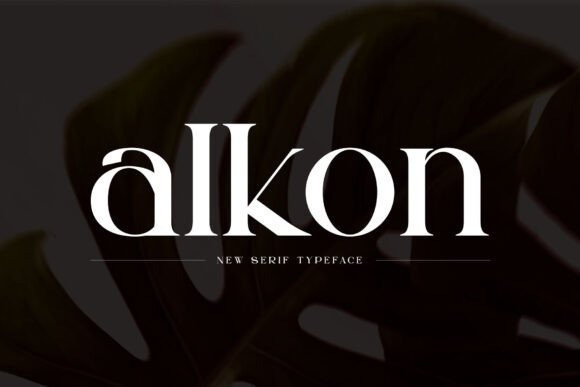
Alkon Font
Alkon Font is an elegant and classy serif typeface. This font is both modern and nostalgic, making it perfect for logos, magazines, and social media. It is already perfectly paired and ready to use for your next design!
If you’re looking for a touch of elegance, style, class, chic, and modernity in your designs, this font was made just for you!